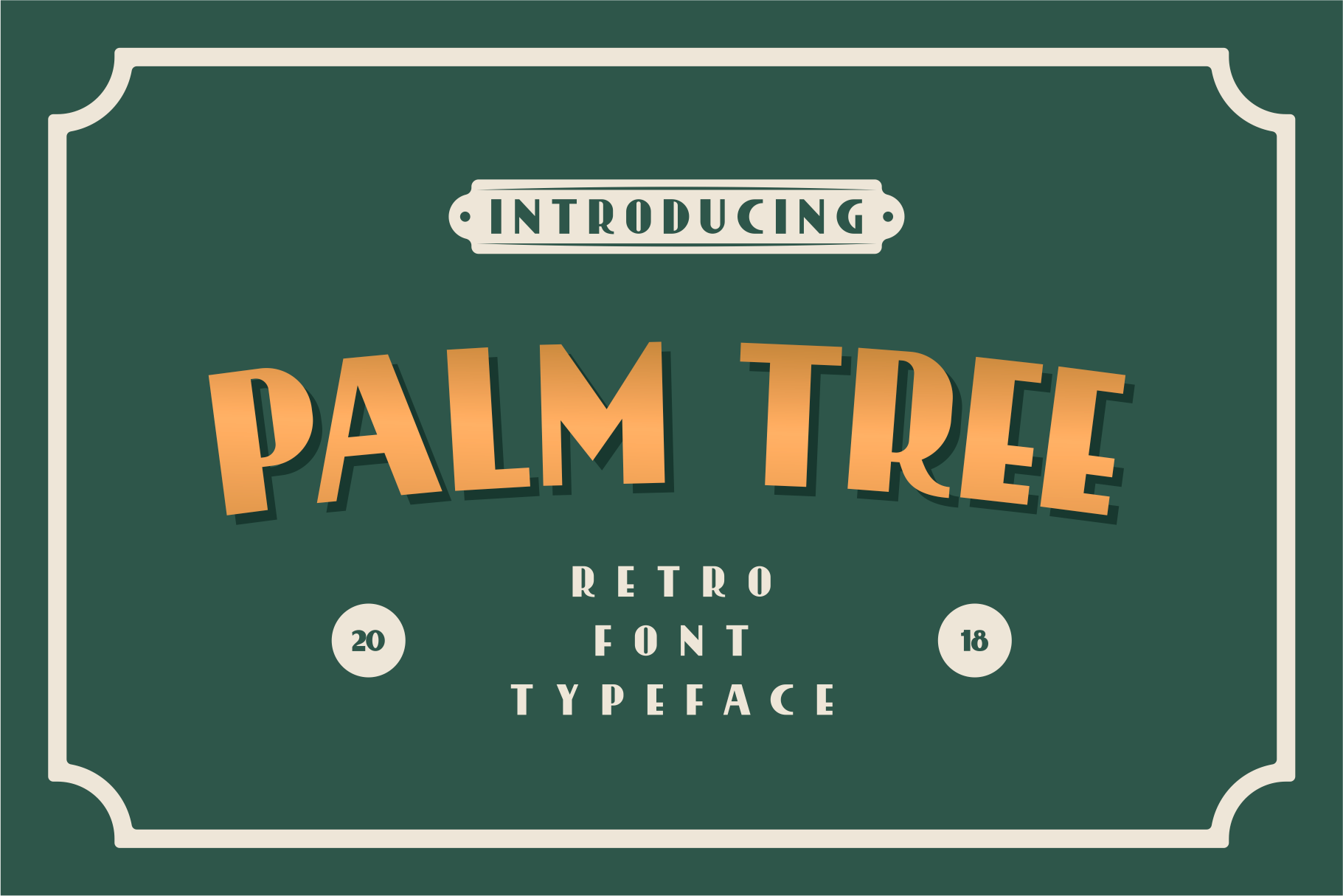
Palm Tree Retro Font
Palm Tree is a classic retro style font, suitable for logo design, posters, design badges and other designs. This logo has a strong character and is also very masculine. This font is available with Lowercase and Uppercase